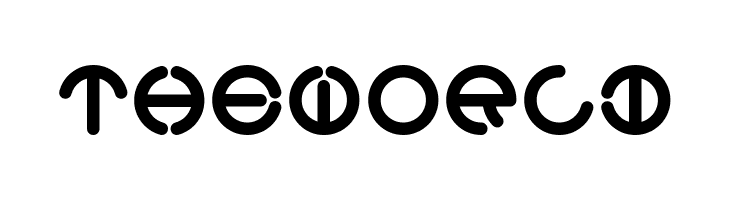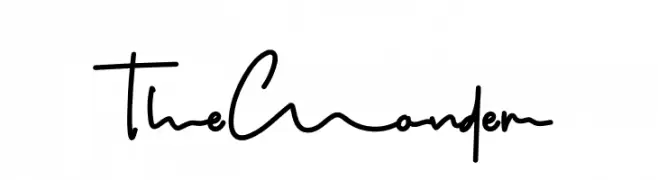
A bold, angular font with a futuristic and geometric design.
A bold, handwritten-style font with dynamic strokes and playful character.
A playful, casual handwritten font with fluid, connected strokes.
A pictogram font featuring lumberjack and woodcutting motifs.
A lively and dynamic script font with bold, flowing strokes and elegant connections.
A bold, geometric font with a futuristic and digital aesthetic.
A playful, hand-drawn font with a whimsical and informal style.
A bold, circular, and slightly italicized font with a modern, playful style.
A futuristic, hollow font with geometric and symmetrical design.